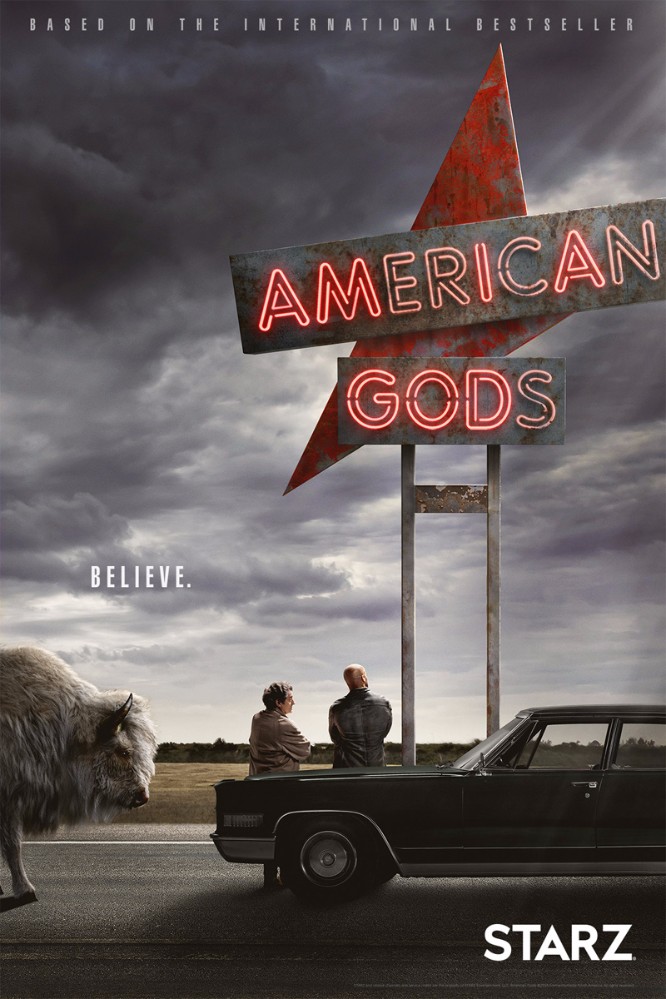
American Gods Font
DramaAmerican Gods is a television series based on the novel by Neil Gaiman. It follows the journey of ex-convict Shadow Moon as he becomes embroiled in a battle between the old gods and the new gods in America.
The American Gods TV series logo showcases its title in vintage neon style lettering, similar to the Neon Light Alphabet Font created by Epifantsev. The font is available in EPS or JPG format and is likely based on the VAG Rounded Bold font created by Gerry Barney and published by Linotype. Try Argon, Monoton, and Neon Glow for similar retro-style free fonts available in the Fonts Used Section.